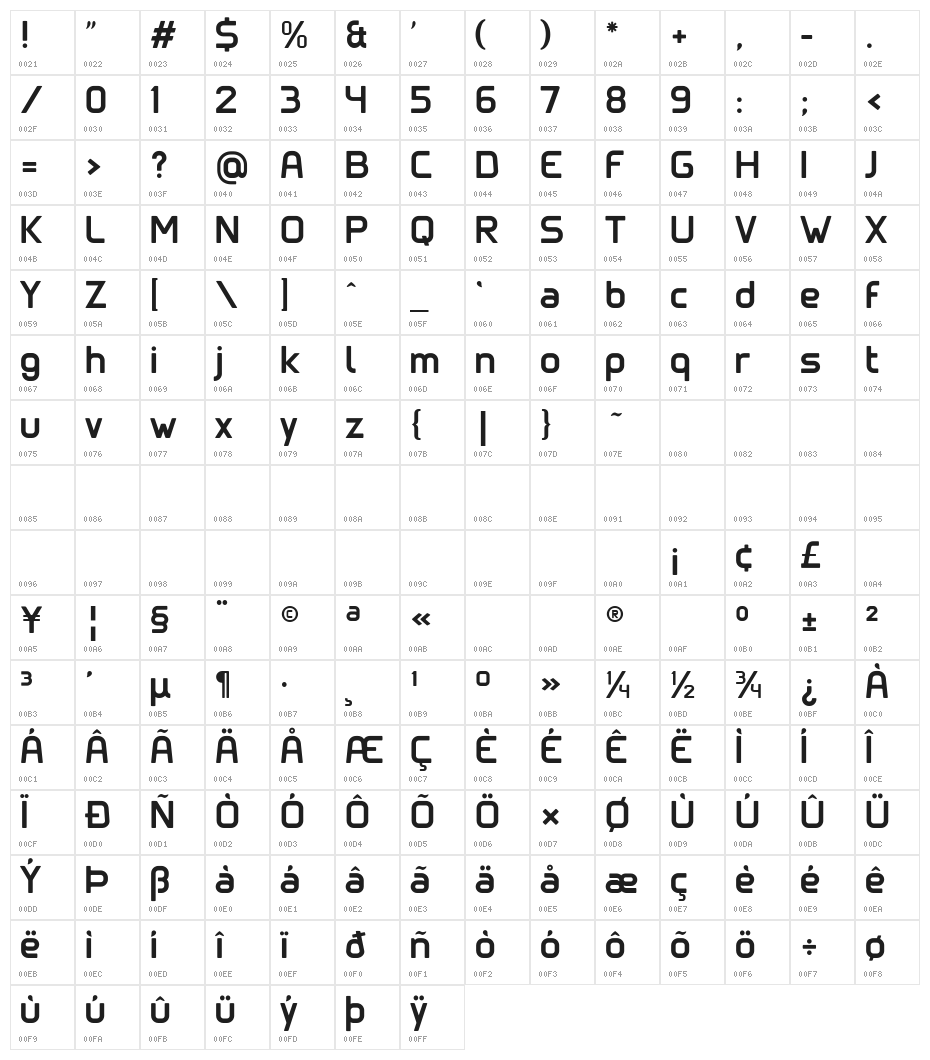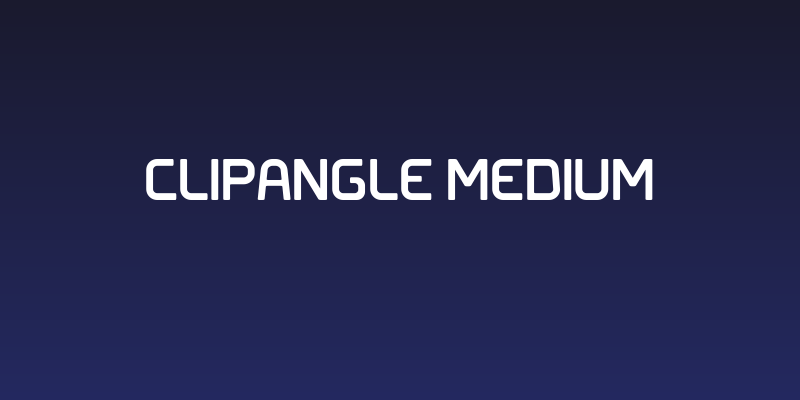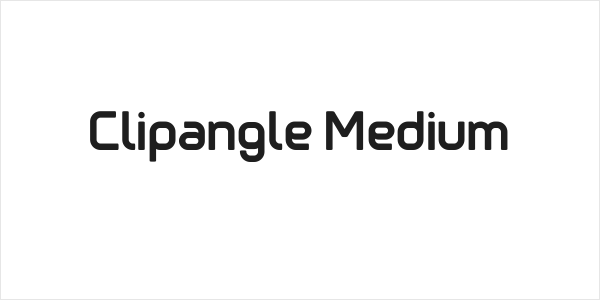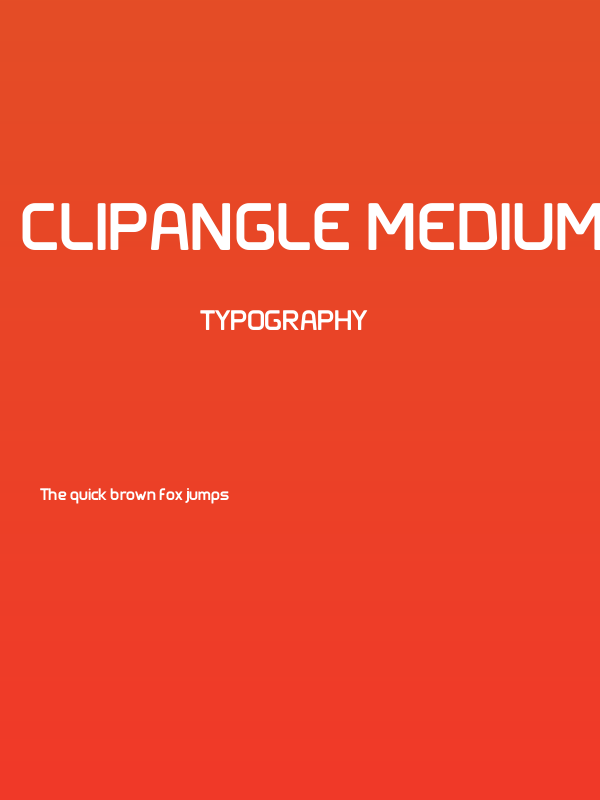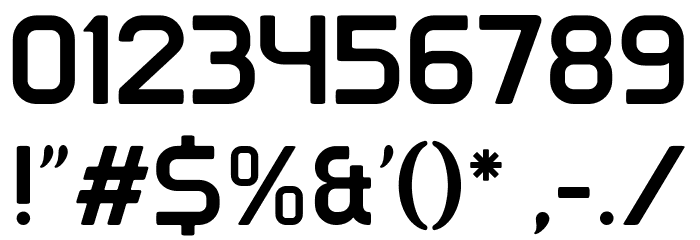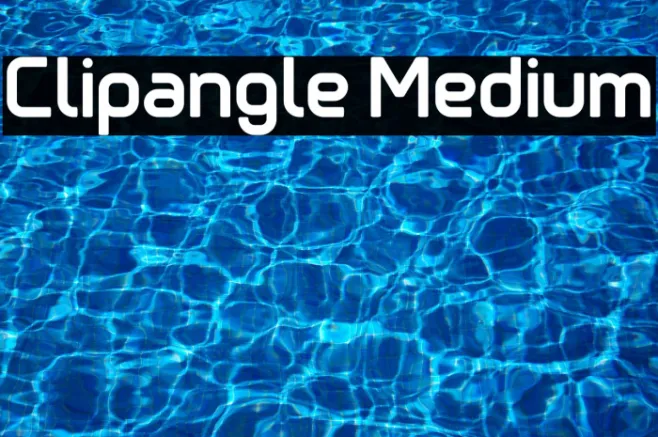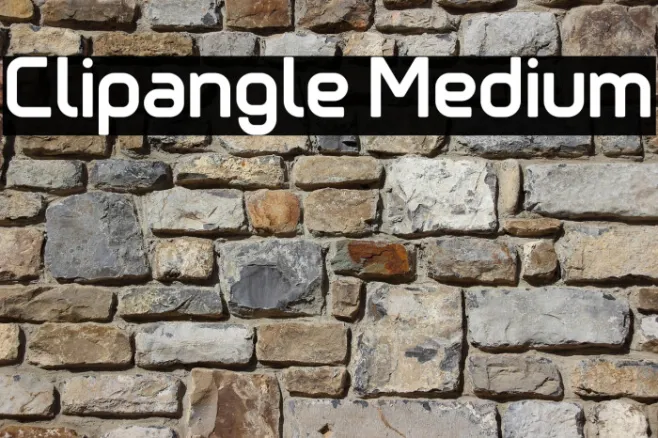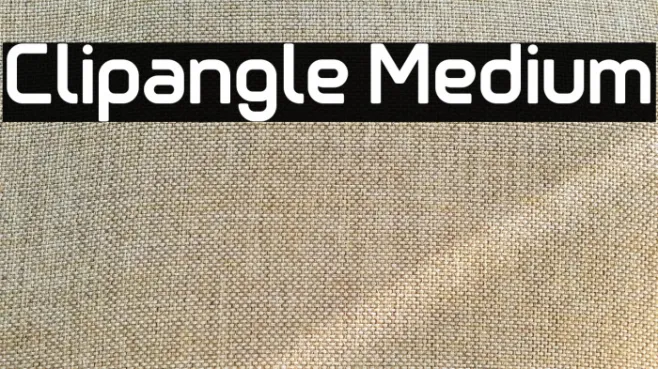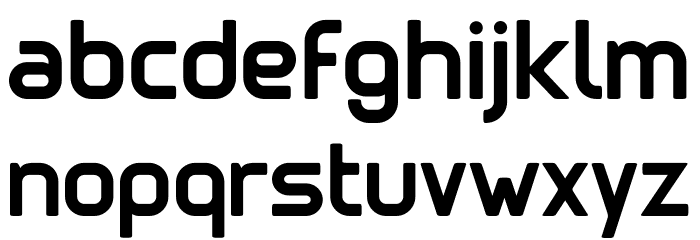
Clipangle Medium Font
Clipangle Medium Description
This font features a modern, geometric sans-serif design with clean lines and a slightly rounded appearance. The characters are evenly spaced, providing a balanced and harmonious look. The uppercase letters are bold and assertive, while the lowercase letters maintain a consistent style with a touch of softness due to their rounded edges. The numerals are clear and legible, making them suitable for various applications. Special characters are well-integrated, maintaining the overall aesthetic of the font. The uniformity in stroke width contributes to a cohesive and professional appearance, ideal for contemporary design projects.
| Proposed Projects | Ideal for branding, digital interfaces, advertising, and editorial design. |